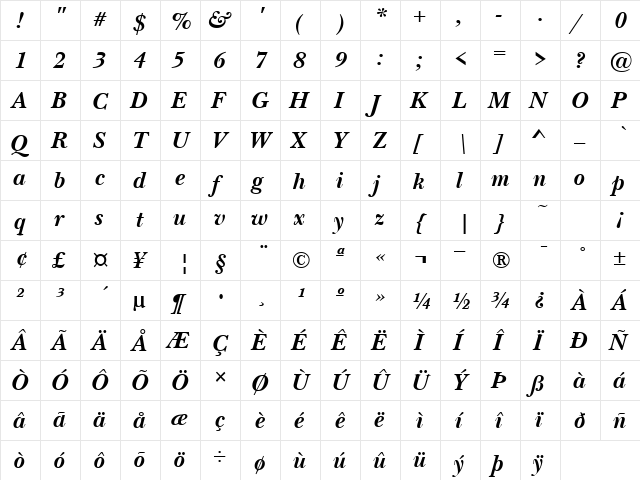
BaskervilleNovaH Bold Italic Font Preview
BaskervilleNovaH Bold Italic
Design Context for BaskervilleNovaH Typeface
BaskervilleNovaH takes a measured approach to typography — its balanced proportions and neutral character make it a reliable workhorse for both digital and print work. Its italic angle brings a sense of urgency and motion to the letterforms. Its bold stroke weight gives it real presence on the page.